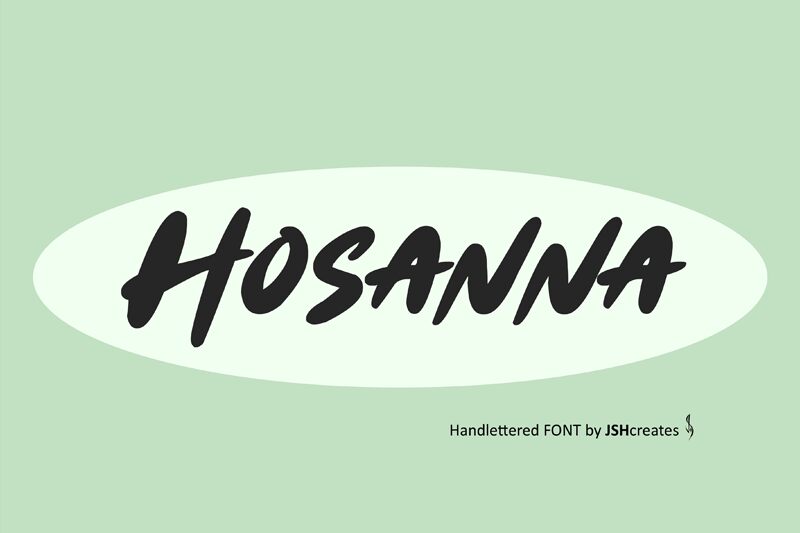
Hosanna font by JSH creates is a handwritten free font with a modern aesthetic and expressive character. Its handwritten, vibrant rhythm makes the font a contemporary choice for applications in branding and packaging. Elegant yet casual, energetic yet handcrafted is the overall feel of this typeface. It combines the quirky attributes of a handwritten font with the versatile advantages of up-to-date appearance.
As a modern handwritten font, Hosanna is great for designing casual and playful headlines. It is also perfect for projects that require the inclusion of handcrafted or sketched-looking texts. This includes café and restaurant branding, custom T-shirt designs, and personal artistic projects such as invitations and business cards.